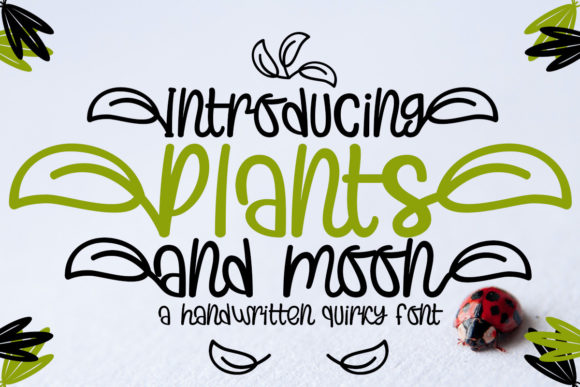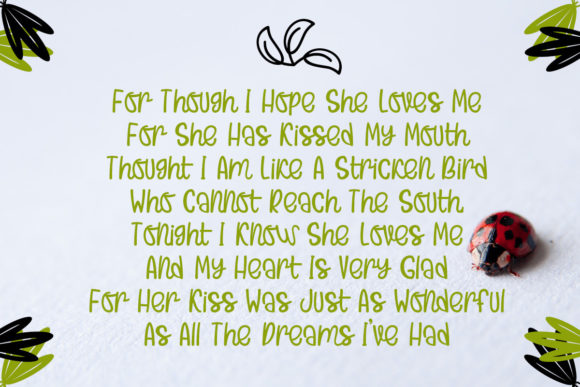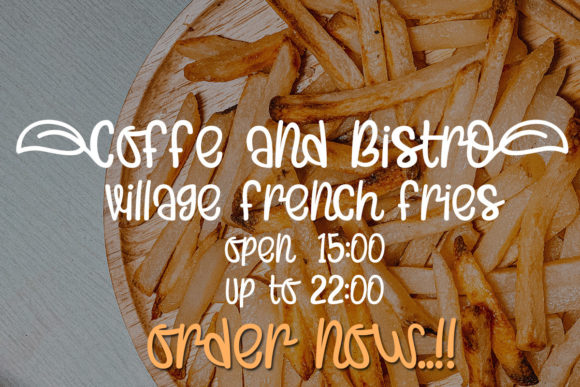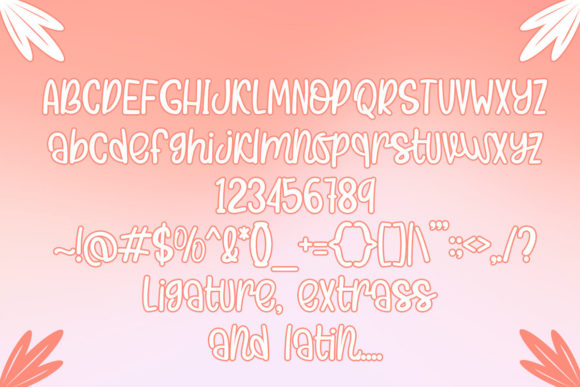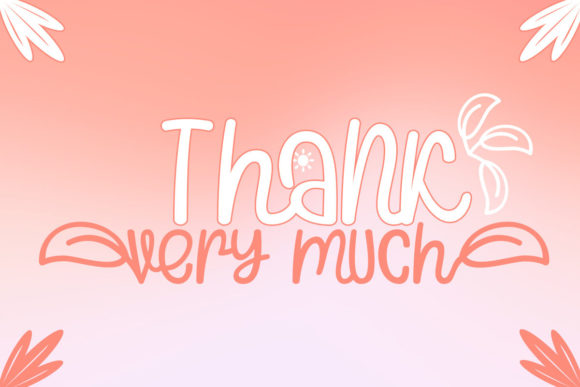
Introduction to Plants and Moon Font
As a designer, have you ever found yourself searching for that perfect font to bring your creative project to life? I know I have, and it’s not uncommon for me to spend hours scouring through design resources, searching for a font that captures the essence of my idea. One day, while working on a design project, I stumbled upon the enchanting Plants and Moon Font. Its whimsical script and relaxed theme immediately caught my attention, and I knew I had to learn more about it.
Key Features of Plants and Moon Font
- Unique blend of natural and celestial elements, perfect for creative projects
- Transparent background option for seamless integration into various design elements
- Perfect design resource for those working on projects related to nature, space, or fantasy
- Includes a range of glyphs and characters to suit various design needs
Honest Review: Plants and Moon Font
As a designer, I’m always on the lookout for unique and high-quality design resources to elevate my creative projects. The Plants and Moon Font caught my eye, and I’m excited to share my honest review with you.
- ✨ The high-quality design ensures that the font looks crisp and clear, even at larger sizes.
- ⚠️ The font is limited in terms of customization options, which might be a drawback for some designers.
Overall, I’m impressed with the Plants and Moon Font, and I would recommend it to designers working on creative projects. With its high-quality design and transparent background, it’s an excellent addition to any design resource library. However, be aware of the limitations, and use it judiciously in your projects.
To get the most out of Plants and Moon Font, try using it in combination with other design elements, such as graphics or textures. You can also experiment with different font sizes and styles to create a unique look.
Common Use Cases for Plants and Moon Font
Plants and Moon Font is perfect for use in creative projects, such as invitations, posters, or social media graphics. It’s also great for use in branding and marketing materials, such as logos or business cards.